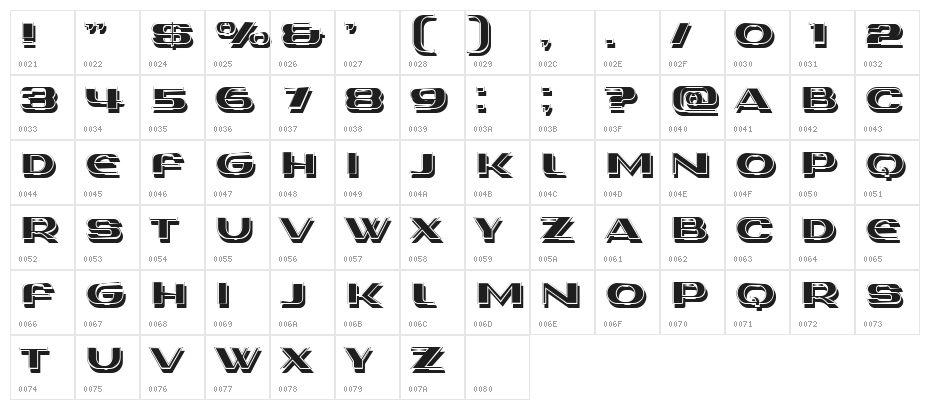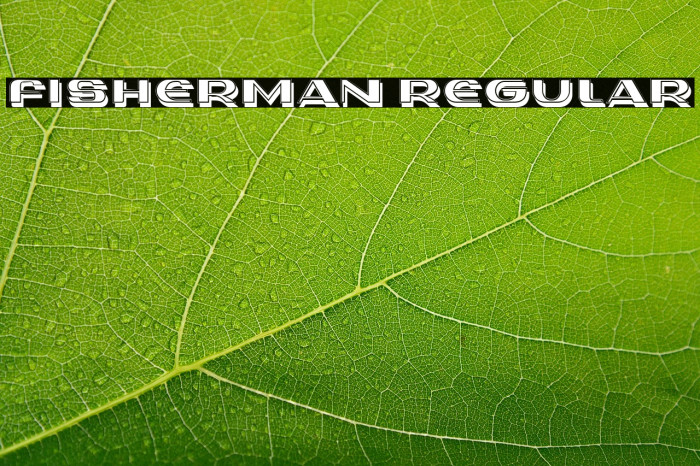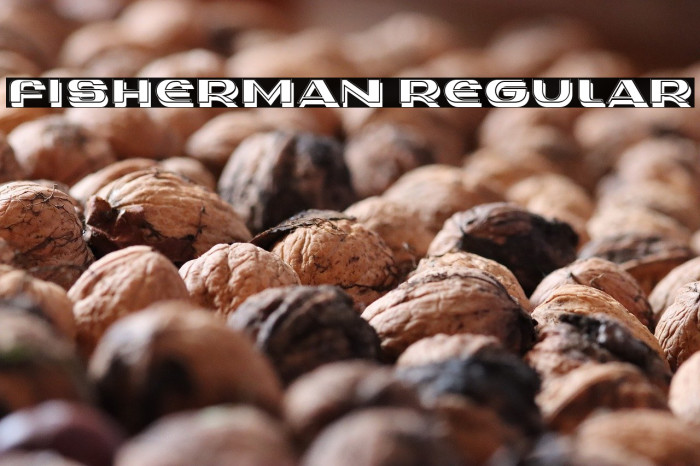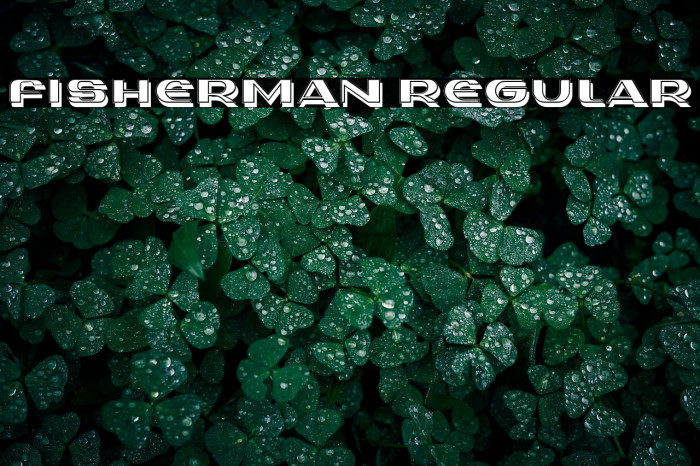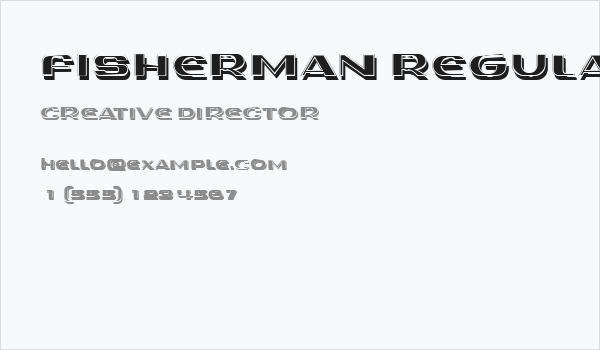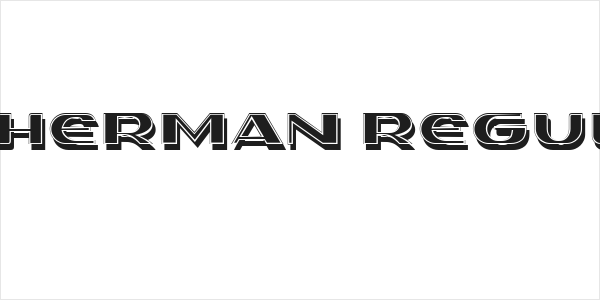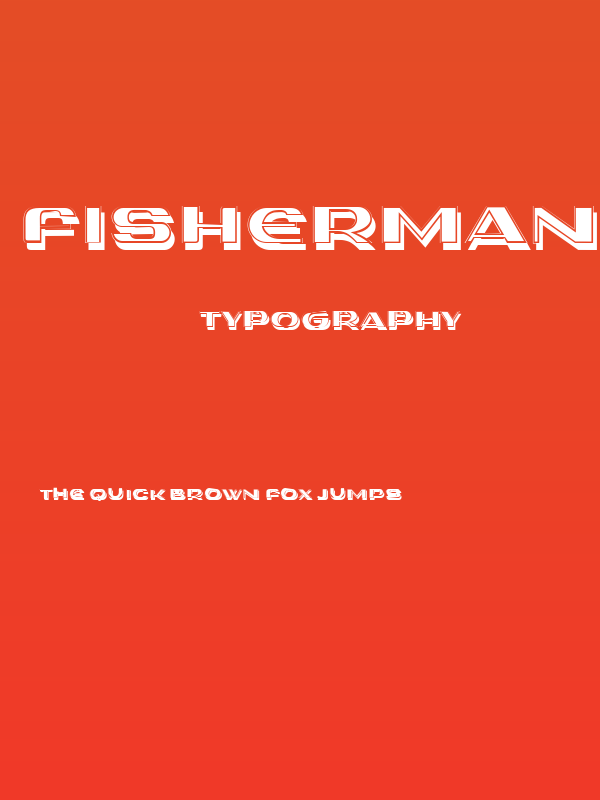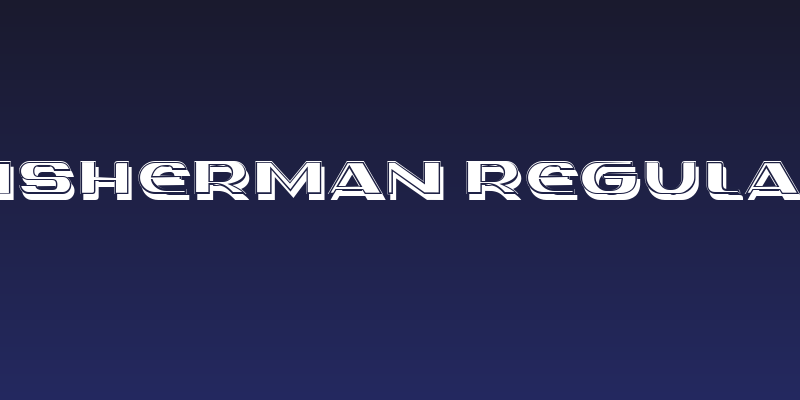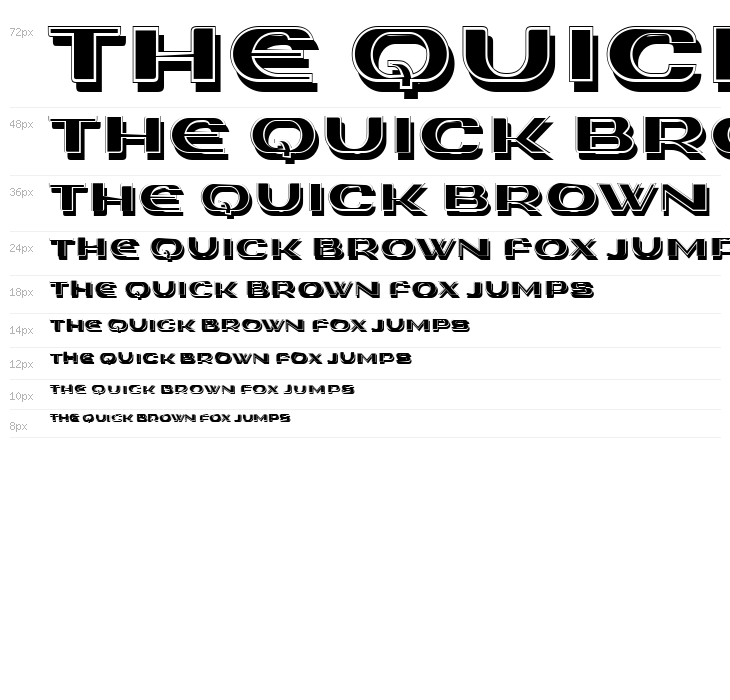
Fisherman Regular Font
Fisherman Regular Description
This font features a bold and striking design with a three-dimensional effect, giving it a modern and dynamic appearance. The characters are outlined with a shadow that adds depth, making them stand out prominently. The geometric shapes and clean lines contribute to a futuristic and industrial feel. The uppercase and lowercase letters maintain a consistent style, while the numbers and special characters are designed to match the overall aesthetic. This font is ideal for projects that require a strong visual impact.
| Proposed Projects | Ideal for branding, posters, headlines, and any design needing a bold statement. |